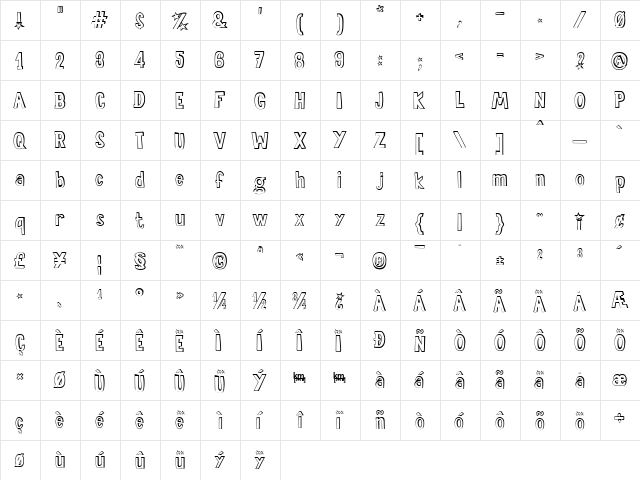
Sala de Fiestas Out Regular
| Foundry | studio kmzero |
| Designer | Studio Kmzero |
Design Context for Sala de Fiestas Out Typeface
Sala de Fiestas Out is a composed and adaptable typeface that performs quietly and consistently across a wide range of design contexts.